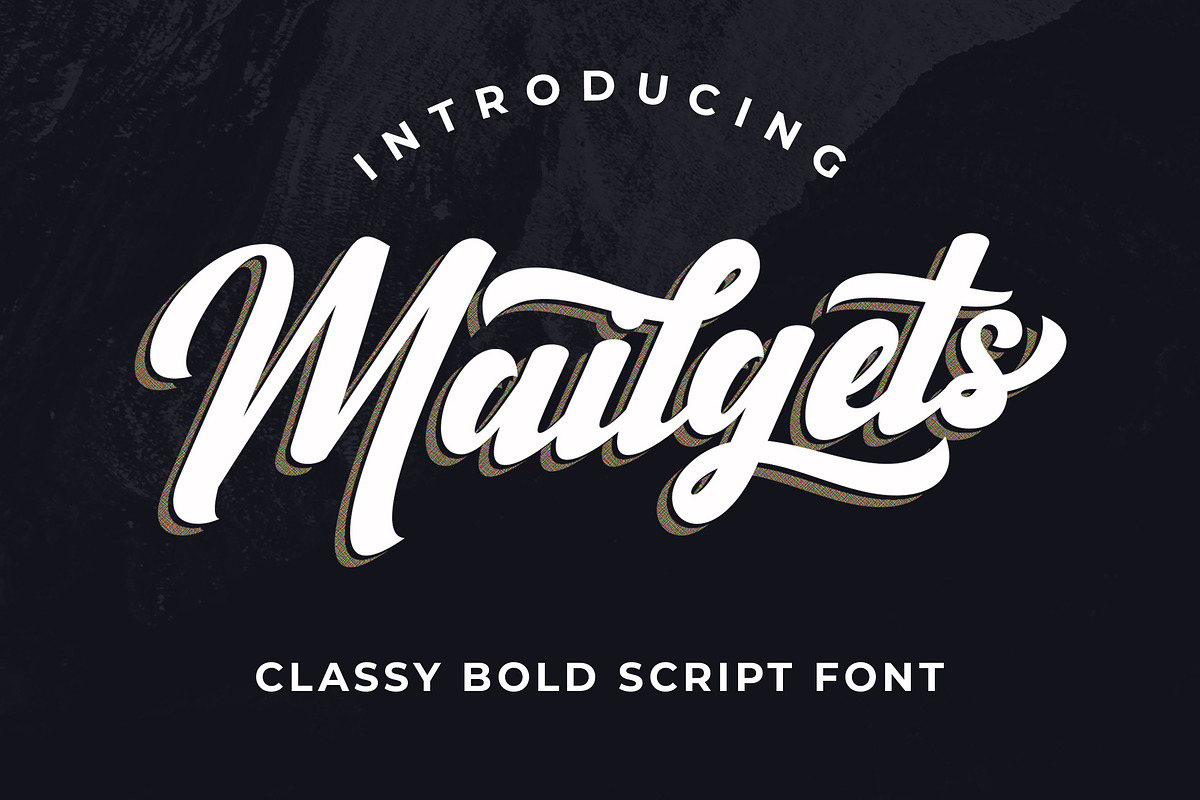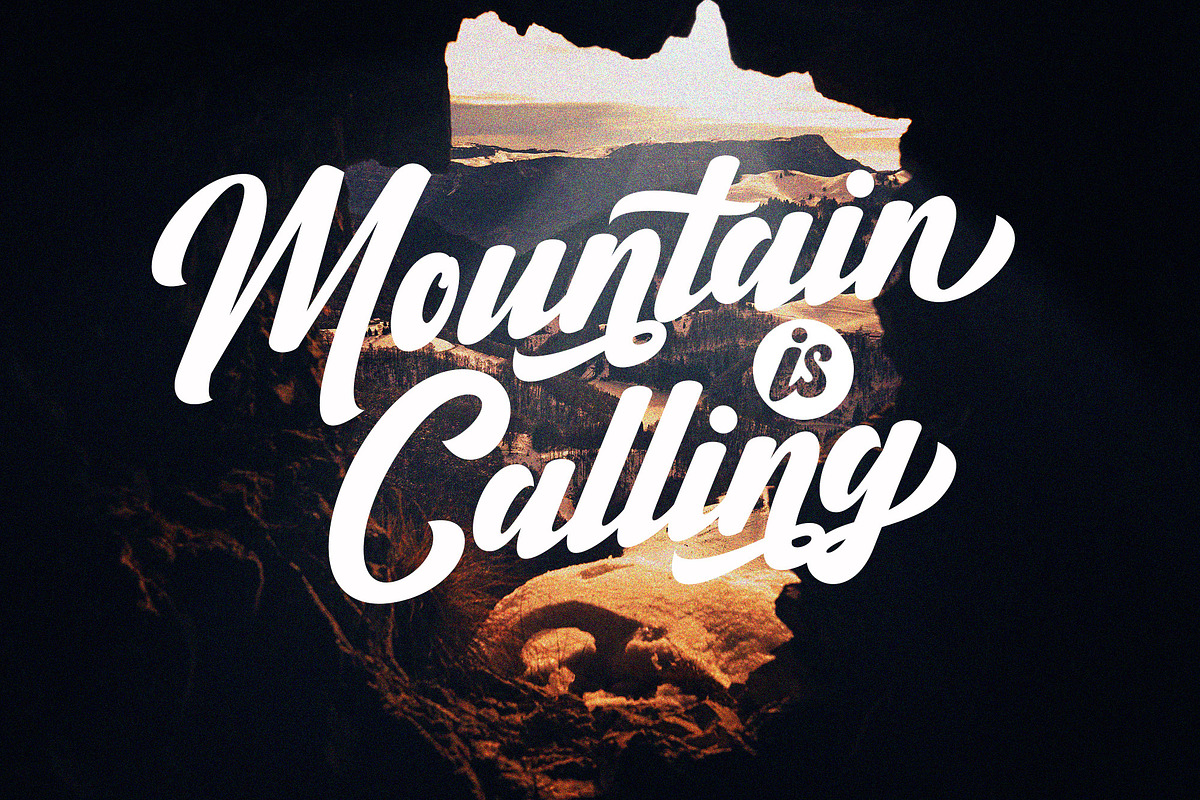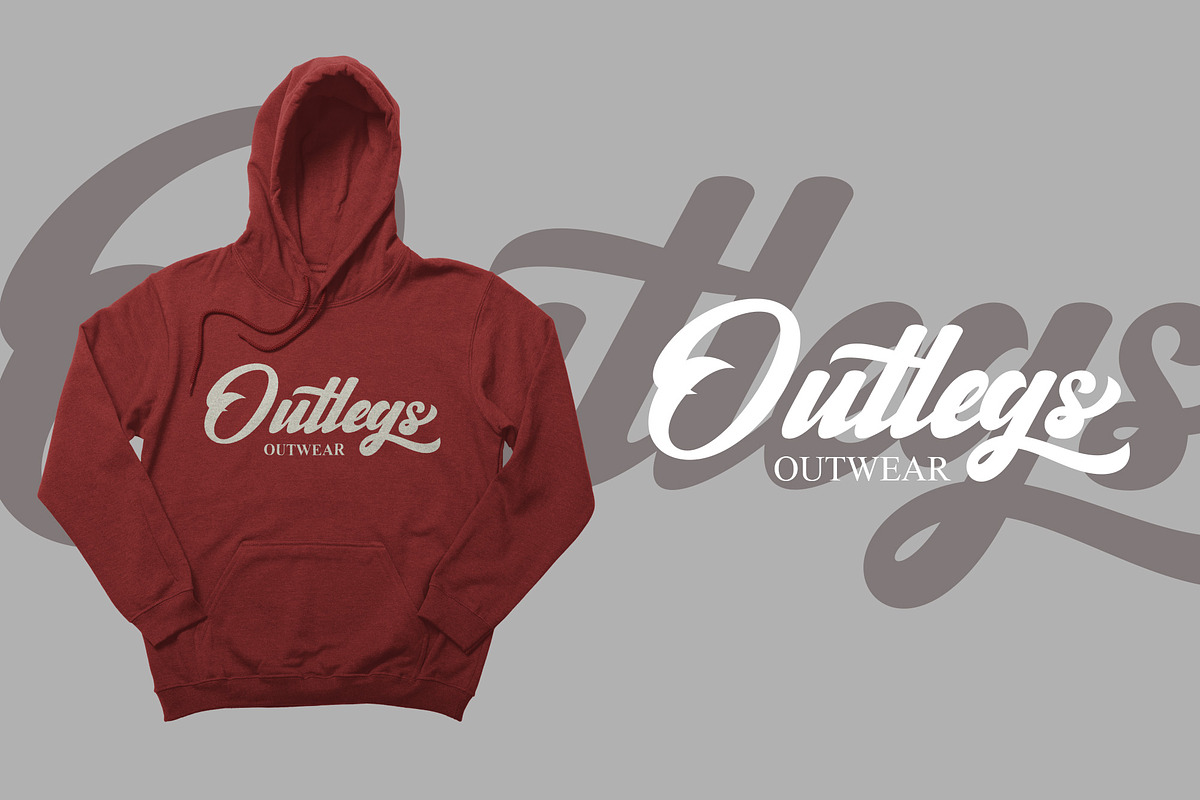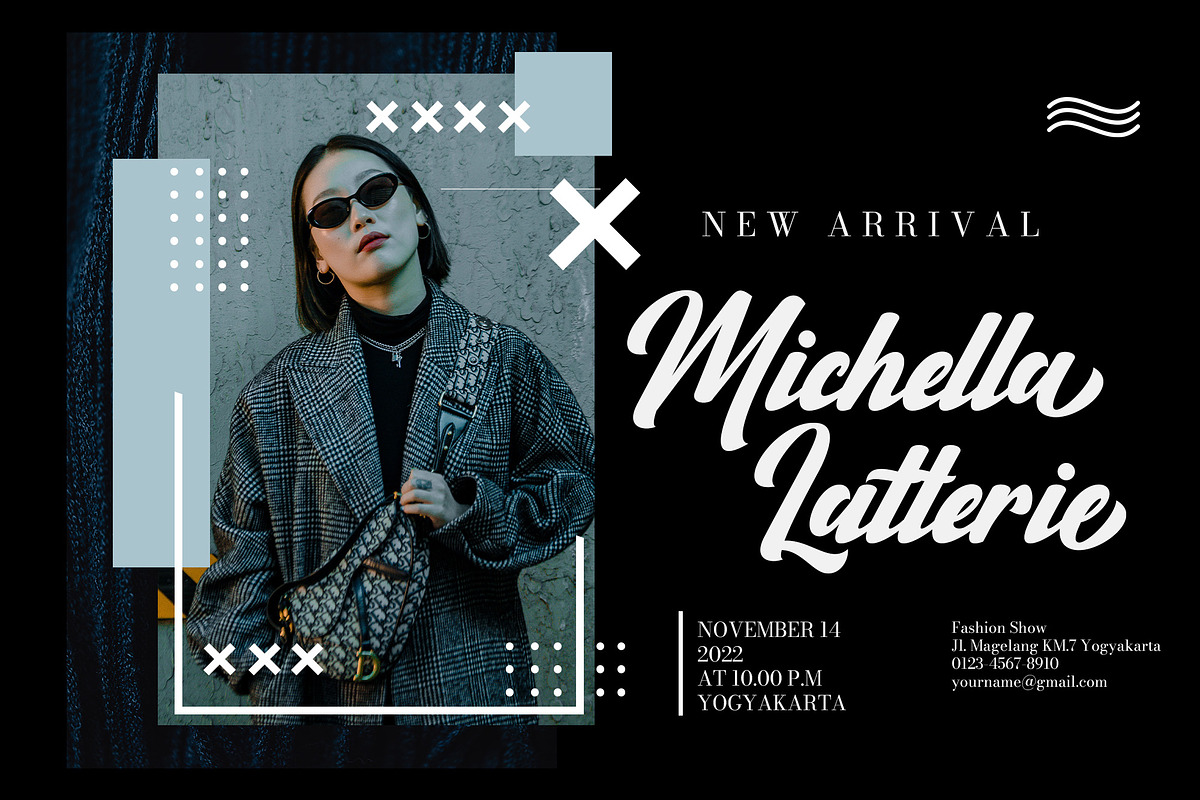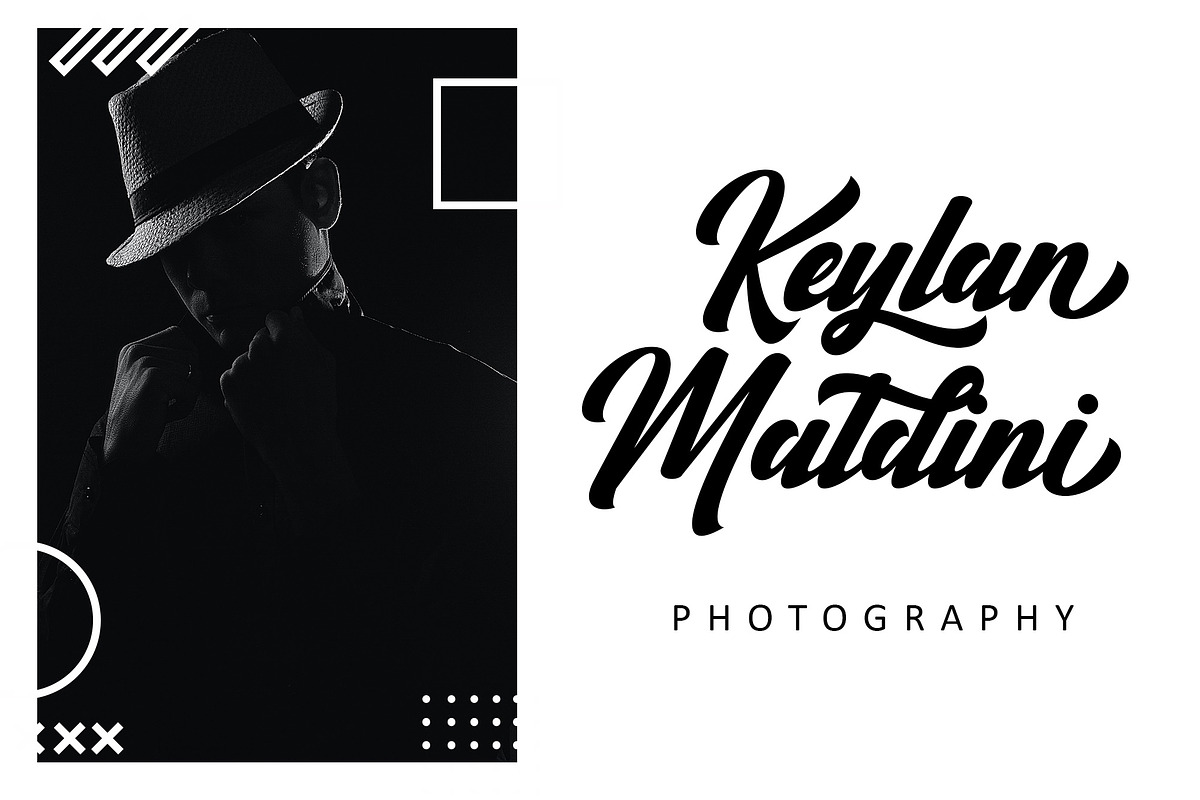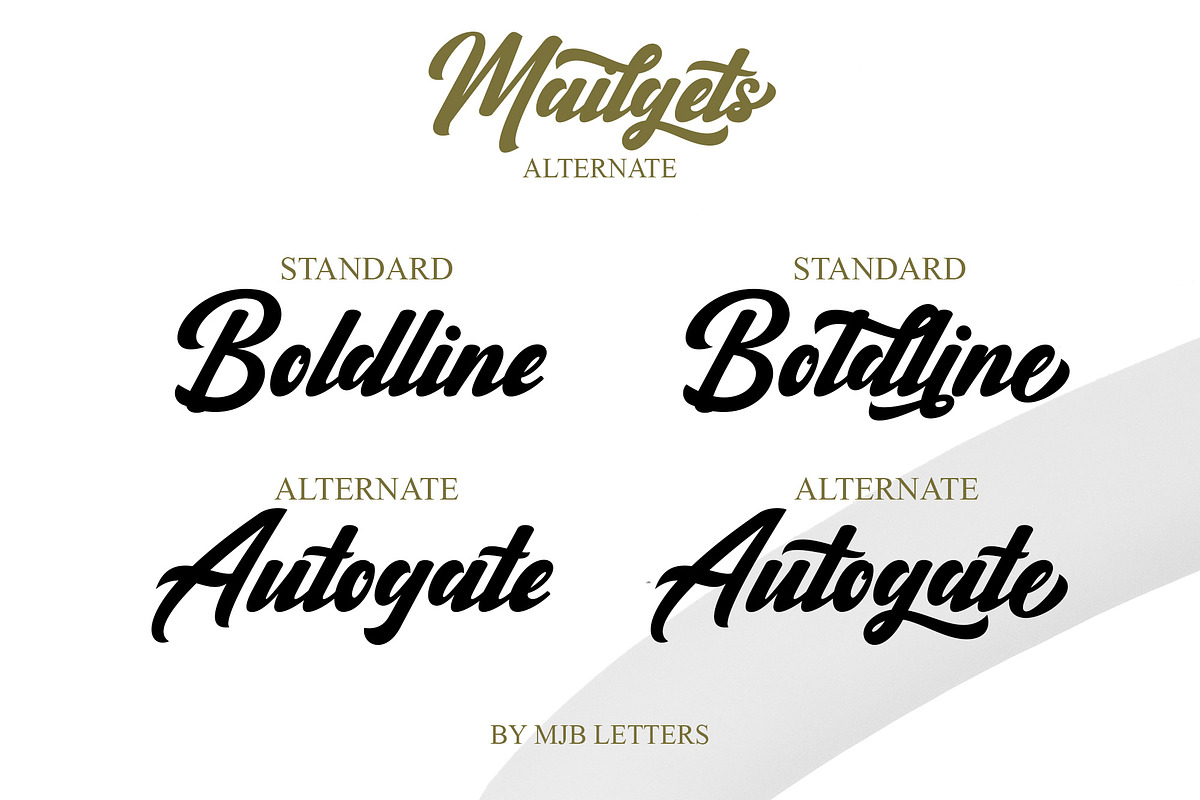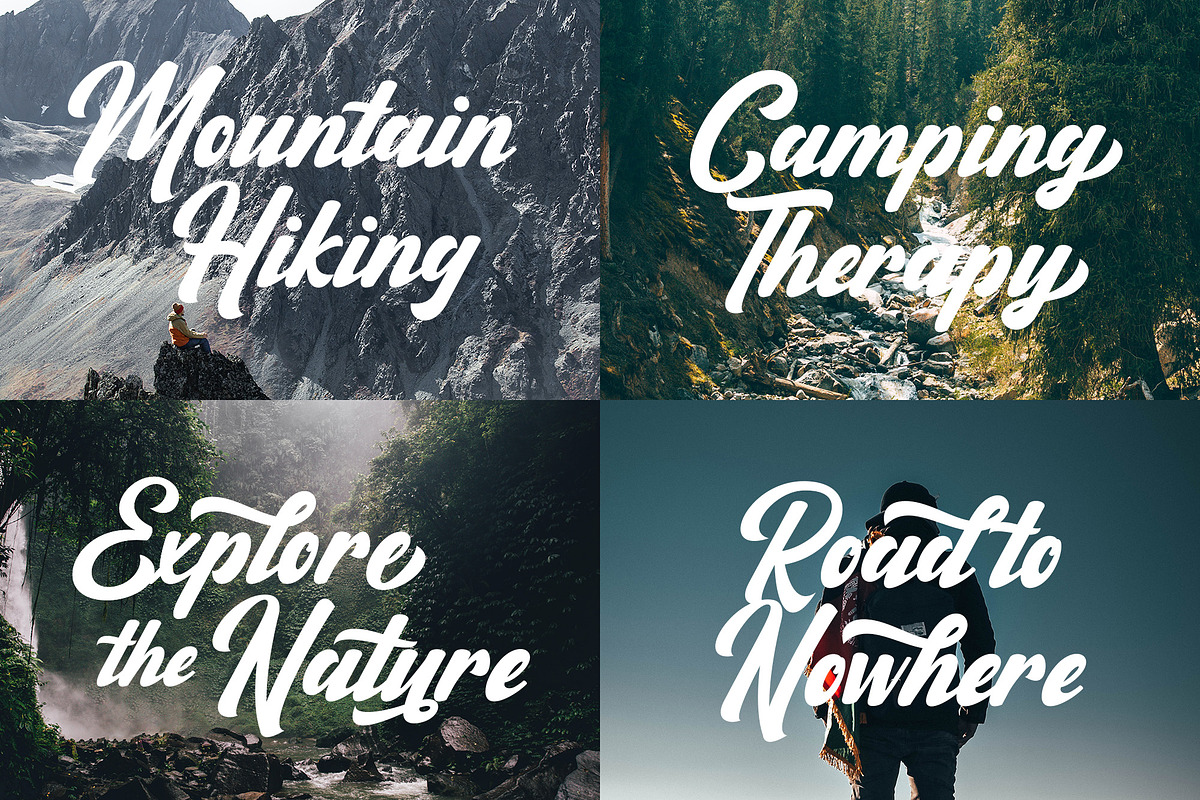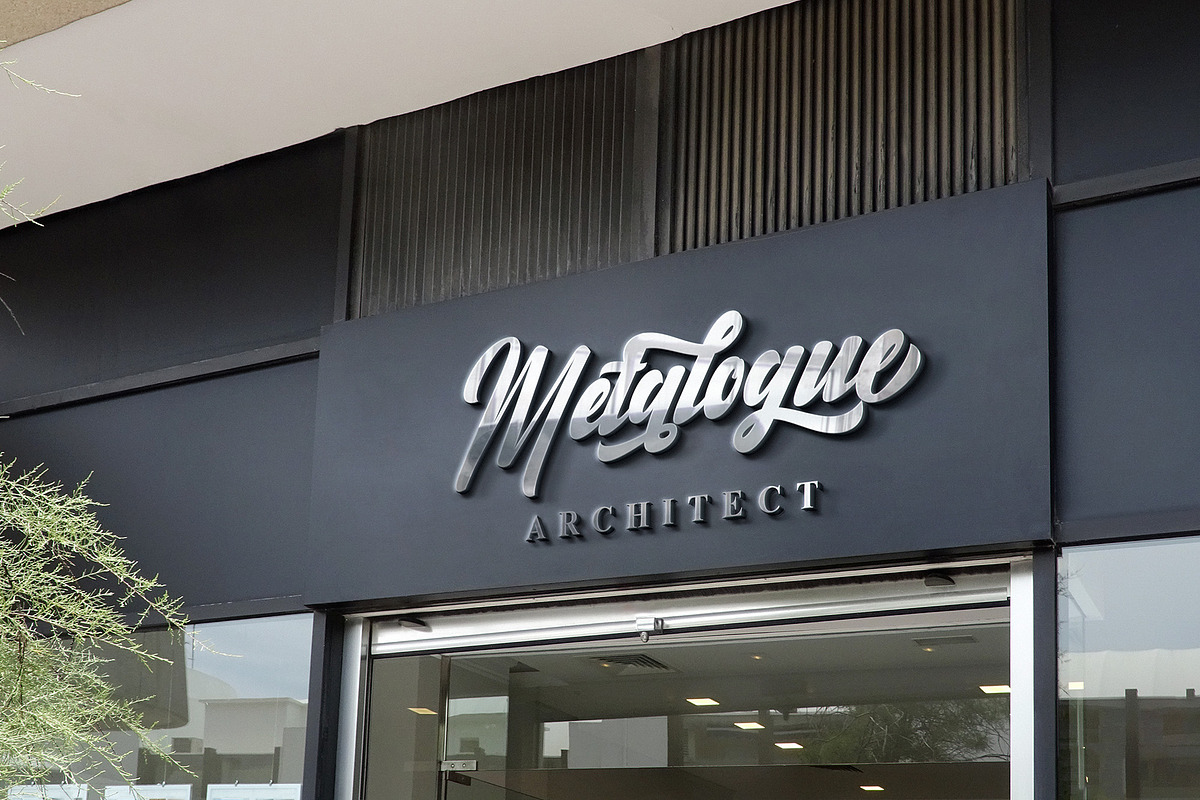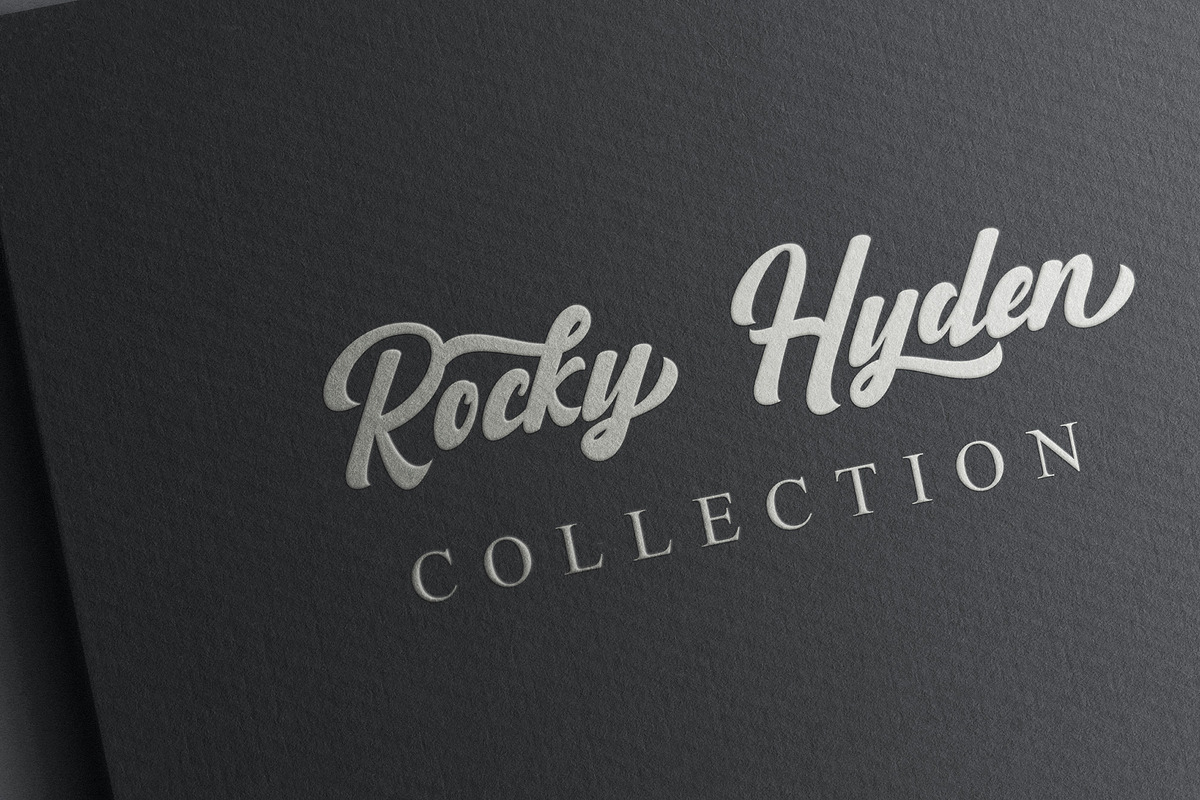
Mailgets // Bold Script Font
Mailgets is a modern bold script font with an authentic feel, the font is inspired by a modern fashion style that is combined with a vintage look which will give an additional impression.